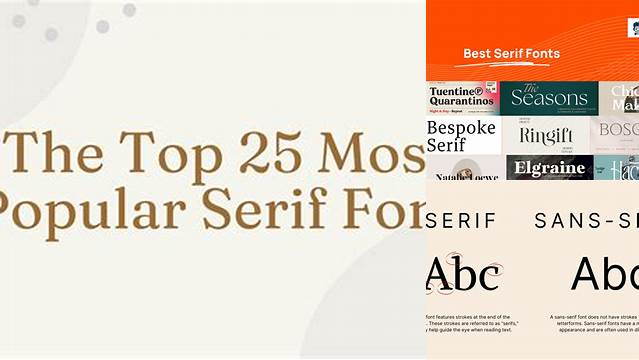
Best Serif Fonts For Comfortable Reading
Hey guys! Let's dive into the wonderful world of fonts, specifically, the best serif fonts for reading. Choosing the right font can significantly impact your reading experience, making it a breeze or a total headache. We're talking about fonts with those little decorative strokes, called serifs, at the end of each letter. They might seem like a small detail, but trust me, they make a huge difference when it comes to readability. In this article, we'll explore the top serif fonts, discuss why they're great for reading, and give you some tips on how to choose the perfect one for your needs. Ready to unlock a more enjoyable reading experience? Let's get started!
1. The Enduring Appeal of Serif Fonts in the Digital Age
Okay, so why are serif fonts still so popular, especially in the digital age where sans-serif fonts have become a trendy choice? Well, there's a good reason! Serif fonts, with their classic look and built-in readability features, have a special advantage when it comes to lengthy reading. Think about newspapers, books, and even websites with lots of text. These fonts were created to guide the eye across the page, making reading less of a chore and more of a pleasure. The serifs act like little signposts, leading your eyes from one letter to the next, helping you to absorb information efficiently. It’s like having a built-in guide that enhances your reading speed and comprehension. While sans-serif fonts can look sleek and modern, they sometimes lack the visual cues that make continuous reading smoother. Serif fonts, like Times New Roman, have been used for centuries, and the technology behind them has improved over the ages. This helps to create a consistent and familiar feel to the reader.
Moreover, serif fonts have a long history of use in print. From the printing press to the books of today, they've demonstrated their effectiveness in delivering large bodies of text. That's why a lot of publishing houses still choose them. This heritage lends a certain feeling of quality and tradition, which is why we often see them in books and journals. For digital reading, this can translate into a more structured and easy-to-scan experience. The serifs give the letters a distinctive shape, which, in turn, makes it easier for the reader to identify words quickly. Furthermore, many serif fonts have variations in their character design, like different weights and styles, giving designers flexibility when it comes to presenting large blocks of text in a creative way.
Finally, the psychological aspect must be mentioned. Serifs, in a way, link us to our literary past. They remind us of the books and stories that have shaped our culture and society. This can create a sense of comfort and familiarity. The fact is, serif fonts have their own special characteristics that help with long reading sessions. They lead our eyes, add a touch of visual interest, and can even evoke a sense of elegance and tradition. In short, serif fonts are still relevant today for their distinct features that assist reading.
2. Decoding Readability: Why Certain Serif Fonts Excel
When it comes to choosing the best serif fonts for reading, understanding the characteristics that contribute to readability is key. Not all serif fonts are created equal, and some have specific design features that set them apart. One of the main factors is the x-height, which refers to the height of the lowercase 'x'. Fonts with a larger x-height tend to be more readable, especially in smaller sizes. This is because the characters are more open and distinct, making them easier to differentiate at a glance. Then there is letter spacing, which refers to the gaps between the letters. The right letter spacing can make all the difference. Too little and the letters become crowded and difficult to read; too much, and the words start to look disjointed. A balance is what you want: letters that are neither squished nor separated too far from each other. Another important aspect is the stroke contrast, which refers to the difference in thickness between the thick and thin strokes of the letters. Fonts with a moderate stroke contrast are often more readable, as they provide enough visual interest without being too distracting.
Besides these factors, the serifs themselves play a major role. The style and shape of the serifs can impact readability, which is why you should choose them wisely. Slab serifs, which have thick, blocky serifs, can be great for headings but may feel heavy for lengthy body text. The ones with more delicate serifs often provide a smoother reading experience. Consider the font's overall design, including the weight of the characters. Regular weights are perfect for body text, while bold weights are better for titles or emphasis. Avoid using thin or condensed fonts, as they can be difficult to read. Furthermore, you have to take into consideration the environment where you will be reading. Will it be on a screen or in print? The font may work great in print but might not display well on a computer. Make sure the font you pick is suitable for the conditions. Also, consider the font's intended purpose. Is it for a book, website, or a short document? All of these factors affect the effectiveness of the font. So, the best serif fonts for reading have clear, open letterforms with a good x-height, adequate letter spacing, moderate stroke contrast, and serifs that help guide the eye.
3. Times New Roman: A Classic for a Reason
Alright, let's talk about Times New Roman. You've seen it everywhere, and you may even have a love-hate relationship with it. But why is it so ubiquitous? Well, it's a classic for a reason, guys! Created in the 1930s, it was designed to be super readable in the narrow columns of newspapers. Its main characteristic is its slightly condensed design, making it efficient for fitting lots of text on a page. It's a workhorse, reliable and familiar, and this gives you great readability. The serifs are elegant but not overly showy. The letterforms are clear and well-defined. Times New Roman is a great pick for those seeking straightforward, traditional look. It is perfect for academic papers, reports, and any document that needs a professional appearance. However, because of its commonness, it might not be the best choice if you're going for a unique aesthetic. You've probably seen it a thousand times, so it might not stand out.
Despite its widespread use, Times New Roman isn't the only game in town. While it gets the job done, there are other, more exciting options that may fit your specific needs. Think about fonts like Garamond or Baskerville. They also belong to the old-style serif font category and offer their own unique charm. If you want something slightly more modern, consider fonts like Georgia or Palatino, which offer great readability on screens. Another thing to consider is that while Times New Roman is easy to read at various sizes, some readers find it a bit too bland. It's a matter of personal preference. Try out various serif fonts and see which one speaks to you. Ultimately, Times New Roman is a solid, reliable choice. Its easy-to-read design makes it a great option for long-form text.
4. Garamond: Elegance and Readability Combined
Now, let's explore Garamond. This font has a touch of elegance that makes it stand out, but it's also incredibly readable. It's classified as an old-style serif, which means it's inspired by the typefaces of the Renaissance. Garamond is known for its graceful curves, open letterforms, and delicate serifs. It offers a sense of timelessness and sophistication, making it a great choice for books and other publications. It has a high x-height, which is a major plus for readability. This means the lowercase letters are taller, which makes them easier to differentiate. Its letterforms are also well-spaced, which is another key factor in readability. Because of this, Garamond is an excellent option for both print and digital reading. It offers a smooth and enjoyable reading experience, with the serifs guiding your eye across the page. Garamond's design also allows for a good amount of text to fit on a page, making it space-efficient. It's perfect for books, magazines, and any project where aesthetics are crucial.
However, there are a few things to keep in mind. While Garamond looks lovely, it might not be the best choice for very small font sizes. The delicate serifs can become less distinct at smaller sizes, reducing readability. Also, it has more of a classical feel than some of the more modern fonts. So, it might not be the right fit for some projects. Nevertheless, if you're seeking a font that combines readability and elegance, Garamond is a fantastic pick. Its graceful letterforms and delicate serifs provide a touch of sophistication. If you are a book lover, you have probably read books with Garamond. Overall, Garamond is a superb choice for anyone who prioritizes both visual appeal and reading ease.
5. Baskerville: A Testament to Refined Design
Next up is Baskerville. This serif font embodies refined design and is highly regarded for its readability. Created in the 18th century by John Baskerville, this font is a transitional serif, meaning it bridges the gap between old-style and modern fonts. It has a high contrast between thick and thin strokes. This characteristic can enhance readability by adding visual interest and making the letters more distinct. The serifs are sharp and elegant, giving the font a sophisticated appearance. Baskerville is particularly well-suited for long-form reading, as its clear letterforms are easy on the eyes. It is a popular choice for books, particularly those that need a touch of classic sophistication. The font is also ideal for academic publications, as its readability helps to ensure clarity and professionalism. Its letterforms are carefully balanced, enhancing the visual experience. This leads to an effortless reading experience. It also has a wide range of weights and styles, making it versatile for different design needs. It is also very easy to recognize, which means that Baskerville is a great option for creating a brand identity.
Baskerville is an amazing font, but there are a few things to remember. The high contrast between thick and thin strokes, while visually appealing, can sometimes pose challenges in smaller sizes or on low-resolution screens. For optimal readability, it is important to use it at a size that suits your readers. In digital environments, the appearance of the font is influenced by the monitor's resolution, so you should test it out on different devices. Despite these nuances, Baskerville's timeless elegance and excellent readability make it a top choice for those seeking a font that combines sophistication with ease of use. In essence, Baskerville is a testament to refined design. Its crisp letterforms and elegant serifs make it an ideal option for books and other long-form reading materials. It gives you a sense of both style and substance.
6. Georgia: The Screen-Friendly Serif
Let's talk about Georgia, a font specifically designed for screen readability. Unlike some serifs that are best suited for print, Georgia was crafted with the limitations of early computer monitors in mind. This makes it an excellent choice for digital reading. Designed by Matthew Carter in the mid-1990s, Georgia has several features that make it great for the screen. It has a relatively large x-height, which increases readability. It also has a robust design with clear letterforms. This ensures that the text remains distinct even at small sizes. Georgia's serifs are also strong and defined. This helps the reader's eye follow the lines of text. This is crucial on screens, where pixel resolution can sometimes make text appear blurry. Furthermore, Georgia is available in various weights and styles. This gives you a range of options when it comes to design. It is easy to read at different sizes and on different devices, including phones and tablets. Because it was developed for digital use, it is a reliable option for any type of online content.
While Georgia is an excellent choice for screen readability, there are a couple of points to consider. Its robust design, while great for legibility, might not be the most elegant. It may look more functional than decorative. Also, it is quite common. So, it might not be the best choice if you're looking for a unique style. Nevertheless, Georgia's screen-friendly design makes it a reliable option for websites, ebooks, and other digital content. It offers an exceptional reading experience, even on devices with low-resolution displays. It gives a high level of usability across different platforms. To sum up, if you are looking for a serif font that looks good on screens, Georgia is a top contender.
7. Palatino: A Versatile Choice for Various Mediums
Now, let's move to Palatino, a versatile serif font that works beautifully in both print and digital mediums. Designed by Hermann Zapf, Palatino has an elegant and timeless design that is perfect for various applications. Its versatility comes from its balanced proportions and clear letterforms. Palatino's design combines readability with a touch of sophistication, making it a great option for both body text and display purposes. It is known for its generous x-height, open counters, and slightly condensed form. All of these features help boost readability and make it a very pleasant font to read. The serifs are classic and well-defined, offering excellent guidance to the reader's eye. Its elegant design makes Palatino a popular choice for books, magazines, and websites. It is also often used in corporate branding.
Palatino’s adaptability also extends to its digital performance. It has a good display on computer screens, and it’s also easy to scale. This means that Palatino looks great in many sizes, making it a flexible choice for different design needs. This adaptability is critical in today’s world, where content is viewed across multiple devices. It also means that it is easy to pair with other fonts to create a design that is visually pleasing. Despite its many advantages, Palatino might not be the best choice for every project. It is a more subdued font, so it may not be the best fit if you are looking for something that is more modern. Also, like other serif fonts, it may not be the most appropriate choice for very small sizes. All in all, Palatino's timeless elegance and excellent readability make it a versatile option. Its adaptability makes it a great choice for both print and digital reading. If you are looking for a font that can handle multiple purposes, Palatino is the answer.
8. Criteria for Evaluation: What Makes a Good Reading Font
When choosing the best serif fonts for reading, it's important to consider a few key criteria. Readability is the most important factor. The font should be easy to read at the size you're using, and it should not cause eye strain. Look for fonts with a large x-height, clear letterforms, and moderate stroke contrast. The design also plays a part. The overall design should complement the content. It should evoke the tone you want to communicate. Also, the font's versatility matters. Does it work in different sizes? Is it appropriate for different mediums? Consider the intended use. Is it for print or digital? For a book, a website, or an academic paper? This will help to determine the fonts that best fit your needs. Another thing is the aesthetic appeal. The font should be pleasant to the eye. It should make you want to keep reading. The design elements should also reflect your brand identity.
It is also important to consider the font's weight and style. Regular weights are best for body text, while bold weights are useful for headings and emphasis. Furthermore, be aware of the letter spacing and kerning. Proper spacing can improve the reading experience. The font's availability across different platforms is also crucial. Ensure that the font is compatible with your device. You should also take into account whether the font has the necessary characters for your content. Also, consider the licensing terms. You must be allowed to use the font for the project you have in mind. Finally, you may want to consider the font's popularity. Popular fonts often have a variety of weights and styles, and they are also often widely supported. By considering all these things, you will be able to find a font that is both functional and appealing. In conclusion, selecting a font that is suitable for reading needs careful consideration of readability, design, versatility, and usability.
9. Font Size Matters: Optimizing for Comfort
Alright guys, let's talk about font size! It's one of the most important things when it comes to the best serif fonts for reading and optimizing for comfort. The right font size can make a massive difference in how easy it is to read. If the font is too small, you'll strain your eyes, and if it's too big, it can disrupt the flow of reading. The optimal size depends on a number of factors, including the font itself, the medium you're reading on, and your personal preferences. For print, a font size of 10 to 12 points is generally considered the standard for body text. However, you may need to adjust this based on the font and the layout of your text. For digital reading, font sizes are often expressed in pixels, and the ideal size can vary widely. On websites, a font size of 16 pixels is a good starting point. But you may want to experiment with larger sizes for better readability, especially on mobile devices.
Besides the font size itself, there are other factors that contribute to readability. Line height, the distance between lines of text, can affect how easy it is to follow the text. Generous line height makes it easier to read. The line length, the width of the text block, also plays a major role. Text blocks that are too wide can be difficult to scan. Shorter line lengths are usually better for readability. It is important to experiment with different font sizes and line lengths. The best size is whatever works best for you. Consider the distance between the reader and the screen. If you're reading on a tablet or a phone, you'll likely want a larger font size than if you're reading on a desktop computer. Personal preference is important too. Some people have better eyesight than others, and some people may prefer larger fonts regardless. You should also remember that the font size will affect the layout of your text. With large fonts, it may mean that there is less text on each line. It may also require more scrolling. So, you need to find a balance that suits your reading needs.
10. Line Spacing and Kerning: Refining the Visual Flow
Let's delve into line spacing and kerning, two critical factors that impact the visual flow of your text, particularly when choosing the best serif fonts for reading. Line spacing, also known as leading, refers to the vertical space between lines of text. The right amount of line spacing can drastically improve readability. Too little space, and the lines can become crowded and difficult to distinguish. Too much space, and the text will seem disjointed and less connected. For body text, a good rule of thumb is to set line spacing to about 120% to 145% of the font size. For example, if you're using a 12-point font, the line spacing should be between 14.4 and 17.4 points. This range provides ample space for the ascenders and descenders of letters without making the lines feel too far apart. The ideal line spacing might vary depending on the specific font. Experiment to see what looks best.
Kerning, on the other hand, refers to the spacing between individual letters. Some letter combinations naturally look better with a little adjustment. Kerning can improve the balance and visual appeal of words. In most cases, fonts are designed with kerning tables that automatically adjust the spacing. You may want to manually adjust the kerning in certain instances, particularly for headings or display text. In some design software, you can manually adjust the kerning of letters. You can reduce the spacing between letters that appear too far apart. You can also increase the spacing if the letters look too close. Keep in mind that the kerning may vary depending on the font, so you will need to consider the kerning of different fonts. Kerning and line spacing, when used properly, can enhance the overall reading experience. Consider the specific needs of your project and try experimenting with various settings to create a visually pleasing flow of text. In short, by paying attention to both line spacing and kerning, you can refine the visual flow of your text and create a more enjoyable reading experience.
11. Print vs. Digital: Font Considerations for Each Medium
When picking out the best serif fonts for reading, it's super important to remember that print and digital mediums have different characteristics. So, the ideal font can also vary based on the format you're using. In print, you generally have higher resolution and better control over the presentation. Fonts that have fine details and delicate serifs can perform well. Think of fonts like Garamond or Baskerville, which have elegant designs with subtle details. In print, you can also fine-tune things like ink density and paper texture. This allows you to make the most of a font's design. With digital reading, you have different problems. The resolution of the screens is limited, and the display of the fonts can be affected by the device. Fonts that are designed for screen readability tend to be a better choice for digital. Fonts like Georgia were created for screen readability, so they are very easy to read on a variety of devices. It is important to choose fonts with clear letterforms and strong serifs to maintain readability on screens.
Another key difference is the way people interact with text. In print, the reader is typically focused on the entire page. In digital reading, the reader may be scrolling through the text. With print, you have full control over the printing process. Digital, on the other hand, can be affected by the reader's device and settings. In print, you can also use a wider range of colors, which is usually not the case in digital reading. So, when selecting a font for digital use, consider whether the font is legible at different sizes. Test it on several different devices, and use it in different resolutions. This helps to ensure a consistent and enjoyable reading experience. When it comes to print, consider fonts that are designed for print. Pay attention to detail and style. The best serif fonts for reading will always depend on the medium. Make sure to consider all aspects of the medium and the design needs of your projects.
12. Combining Serif and Sans-Serif: A Balanced Approach
When picking out the best serif fonts for reading, you may consider combining them with sans-serif fonts. This is a great way to create balance, and it is also a popular design technique. The secret is to pair fonts that complement each other. A good combination offers contrast and visual interest. Serif fonts often work great for body text, as they are easy to read, while sans-serif fonts work well for headings and titles. The contrast can help organize the page and improve readability. When choosing a font combination, look for fonts with similar characteristics. For example, you can pair a classic serif like Garamond with a clean sans-serif like Helvetica. This combination offers a sense of style and sophistication. You may also consider pairing a more modern serif font with a geometric sans-serif. This will create a more contemporary look. The right combination depends on your project. You must choose fonts that complement the content and evoke the tone.
There are a few general guidelines to help you with font pairing. Avoid pairing fonts that are too similar. The result may be boring. Instead, seek contrast. Pay attention to the x-height and weight of the fonts. These factors influence readability. You can find great font combinations through experimentation. Look at different fonts, and see how they perform when combined. There are also many resources and tools online that offer font pairing suggestions. You can find a style that appeals to you. Remember that font pairing is an art. It is a matter of finding the right balance. By carefully pairing serif and sans-serif fonts, you can create a visually appealing and easy-to-read design. You can also make your design projects more professional. In short, combining serif and sans-serif fonts is an effective design technique. It also offers contrast, balance, and visual interest.
13. Testing and Iteration: Refining Your Font Choice
Alright, guys, let's talk about testing and iteration. When you're looking for the best serif fonts for reading, it's not always a one-and-done deal. The process of finding the perfect font is often a journey of testing and refining. Begin with your list of possible fonts. Select a few that you think might work well. Then, implement them in a test document. This could be a sample of your project or a dummy text. Check the readability of the fonts in the context of your project. Read the text, and see if you can focus your attention easily. Check to see how the fonts look at different sizes. You may also consider different line spacing. Test your fonts on different devices and screen resolutions. This will help you to assess their performance in various environments. Gather feedback from other people. Show your tests to your colleagues, friends, or even family. Ask for their opinion. Do they find the fonts easy to read? Does the overall design make sense? Based on the feedback and your own observations, refine your font choice. Go through the process again with your next test. This will ensure that you're selecting the best possible fonts for your project.
During the testing process, pay attention to specific details. Check the kerning and letter spacing. These adjustments can improve readability. Also, think about the overall design. The font should match the tone of the content. The most important thing is how the font performs in the context of your project. The testing process will provide valuable information that helps you refine your choice. Experiment with different styles, weights, and sizes. Be patient, and you will eventually find the perfect fonts. The testing process is important for several reasons. First, it ensures that the fonts work well in different contexts. Then it allows you to get feedback. The process enables you to make informed decisions. By following these steps, you can ensure that your project looks good and is also easy to read.
14. OpenType Features: Enhancing Font Functionality
Let's explore OpenType features. These are the hidden treasures within the best serif fonts for reading. They enhance functionality and allow you to customize your text. OpenType is a font format, and it supports a wide range of features. It has features that go beyond basic character sets. These can make your text look better. These features include ligatures, small caps, old-style figures, and stylistic sets. Ligatures are special characters that combine two or more letters into a single glyph. Ligatures help to make the text flow better, and they prevent collisions between letters. Small caps are variations of lowercase letters that are the same height as the uppercase letters. Small caps are often used for headings. Old-style figures are numerals that are designed to blend seamlessly with lowercase letters. They add a touch of sophistication to your text. Stylistic sets are alternate versions of letterforms. These sets allow you to customize the appearance of your text. OpenType features are extremely valuable when choosing a font. To use OpenType features, you need software that supports them. This is most design programs. Enable the OpenType features in your software. Select the features that match your design needs. This includes options such as ligatures or small caps.
OpenType features not only improve aesthetics but also functionality. They can enhance the reading experience. By using ligatures, you can remove the distracting letter combinations. Small caps can improve the readability of headings. The old-style figures can also add a professional touch to your text. To get the most out of OpenType features, explore the different features. Learn how to enable them in your software. Understand the potential of each feature. You can create visually appealing and professional-looking designs. The more you learn about OpenType features, the more you will love them. OpenType features are an important aspect of choosing the best serif fonts for reading. You can use them to improve readability, enhance aesthetics, and customize your text.
15. Avoiding Common Font Mistakes: Tips for Beginners
When choosing the best serif fonts for reading, there are common mistakes you'll want to avoid, especially if you're a beginner. One of the biggest mistakes is picking a font based on its appearance only. While aesthetics are important, prioritize readability. Make sure the font is easy to read at various sizes and in different contexts. Another common mistake is using too many fonts in one design. More is not always better. A design will be more cohesive with a limited number of fonts. Stick to two or three fonts at most. Another mistake is choosing fonts that are too similar. This reduces the visual impact. Also, be sure that the font is legible. Some fonts look stylish but are difficult to read. The reading experience should be the main focus. The wrong font choice can also reduce the effectiveness of your design.
Another mistake is not considering the medium. A font that looks great in print may not be suitable for the screen. The font's size also matters. Make sure you are using the correct font size for your content. In addition, be mindful of your design's layout. Make sure that the text has enough line spacing. The letters shouldn't be too close together. Also, make sure the kerning is adjusted properly. A wrong kerning can also make the text difficult to read. Always proofread your work. The text should be proofread for accuracy. By learning about these mistakes, you can choose better fonts. Avoiding these common mistakes can help you create better designs. By being aware of these errors, you will be able to improve your designs. In essence, being mindful of common font mistakes will help you to create professional and engaging designs.
16. Resources for Font Exploration and Inspiration
If you're looking for the best serif fonts for reading and need some guidance, you are in luck! There are a lot of resources that can help you explore and find inspiration. Websites like Google Fonts offer a great library of free fonts, including many high-quality serif options. They are very easy to use. You can explore the fonts and download them, and you can also easily see the fonts in different sizes. Another great resource is Adobe Fonts, which has a wide range of fonts. Some require a subscription, and others are free. There is also MyFonts, which offers a large library of fonts. It's also possible to preview the fonts. You can also read reviews from other users. For inspiration and ideas, you can check design blogs and websites. Sites such as Behance and Dribbble are amazing resources. You will see the font choices used in real projects. This is great for seeing the fonts in context and for getting ideas. Look into the font pairing guides. There are websites and tools that offer suggestions for combining fonts. This can save you time and effort. *